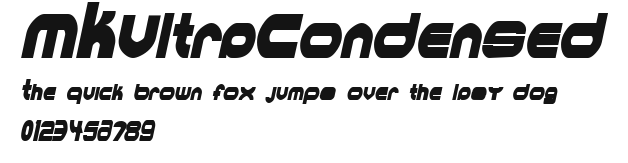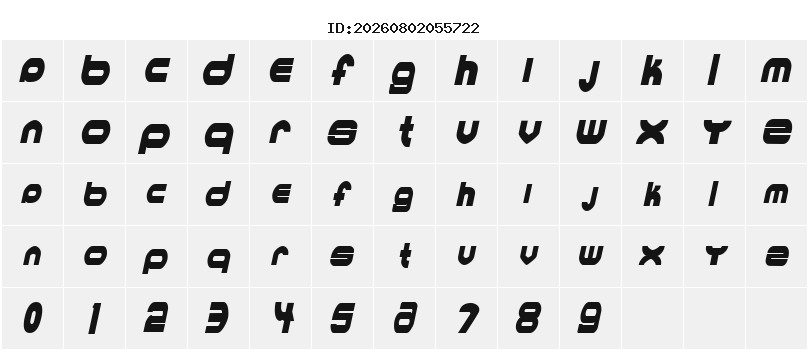
• Font Name: MKUltraCondensed
• Font ID: SWFTE:MKUltraCondensed Italic
• Full Font Name: MKUltraCondensed Italic
• Version: Rev. 003.000
• PostScript Name: MKUltraCondensedItalicSWFTE
• Character Count: 78
About MKUltraCondensed.ttf
MKUltraCondensed.ttf is a modern, elegant sans-serif font designed for ultimate readability and visual harmony. Perfect for branding, headlines, web design, and print materials.